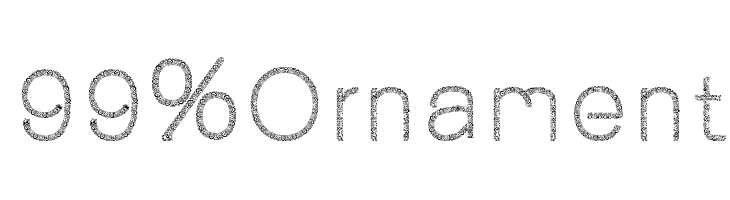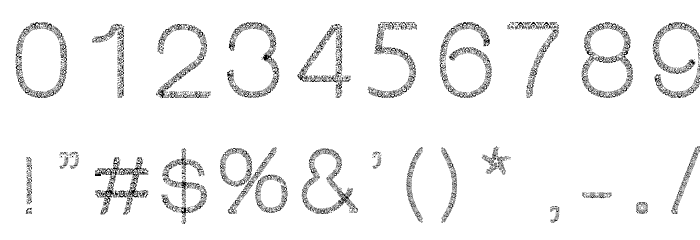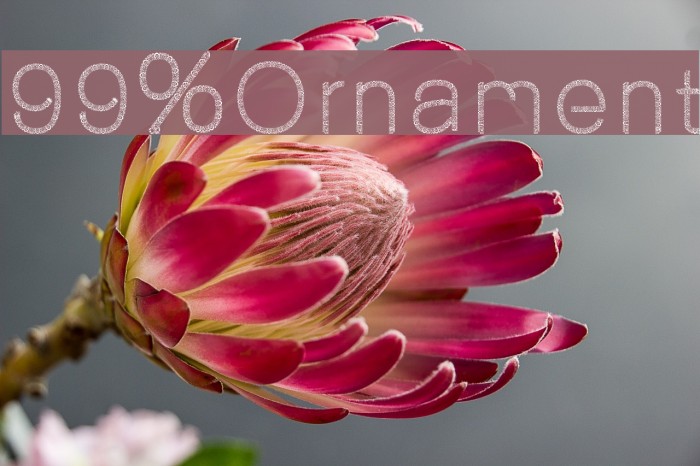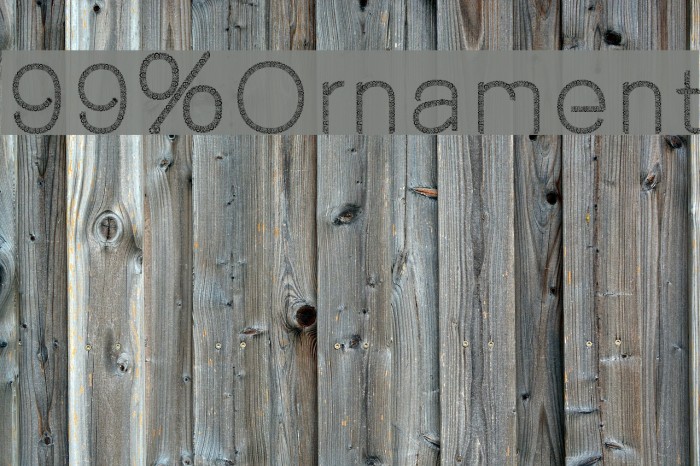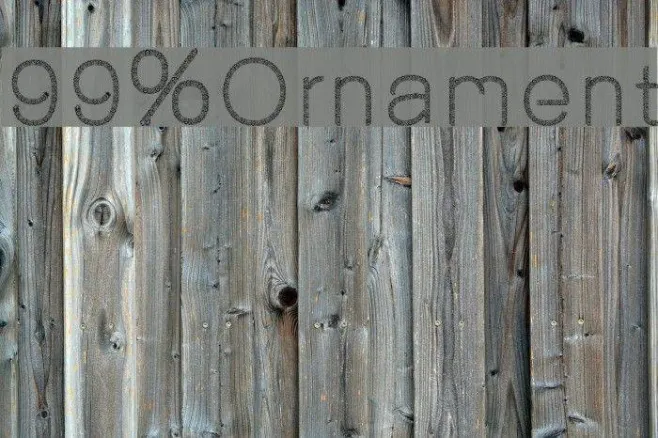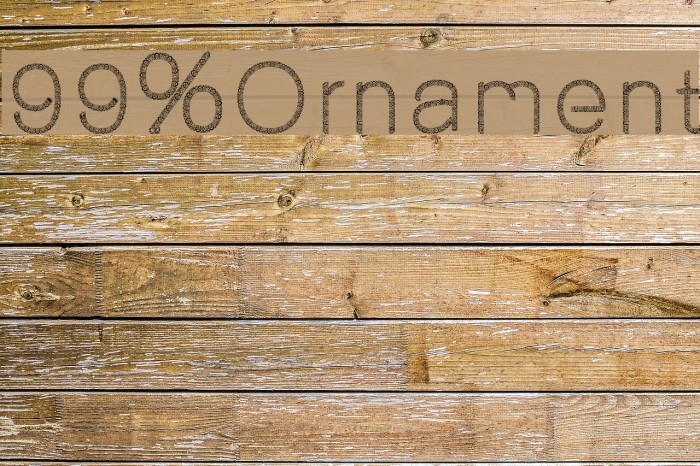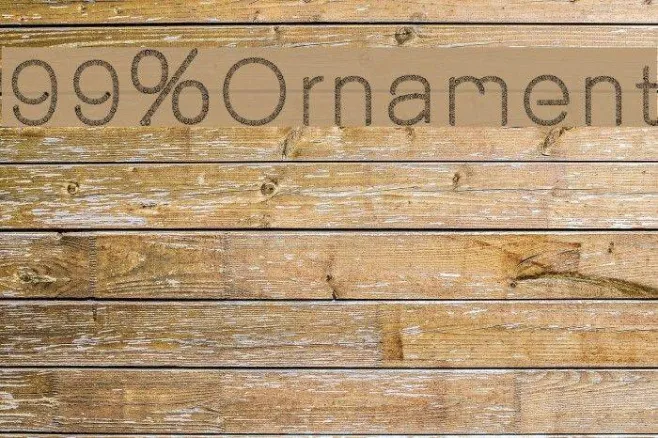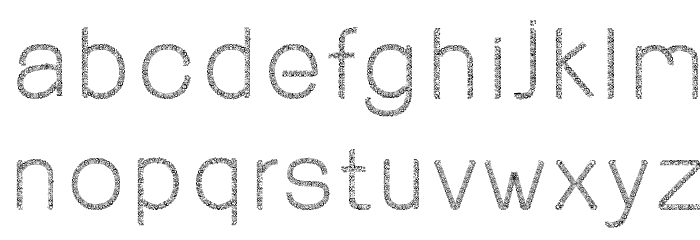
99%Ornament Font
99%Ornament Description
This font features a unique, textured design that gives each character a distinct, ornamental appearance. The letters are crafted with a stippled effect, creating a sense of depth and intricacy. The uppercase and lowercase letters maintain a consistent style, with clean lines and rounded edges that enhance readability. The numerals and special characters are equally detailed, ensuring a cohesive look across all text elements. This font's decorative nature makes it ideal for projects that require a touch of elegance and sophistication.
| Use Case | Headlines, Logos, Decorative text |
| Proposed Projects | Ideal for wedding invitations, greeting cards, branding, and decorative posters. |